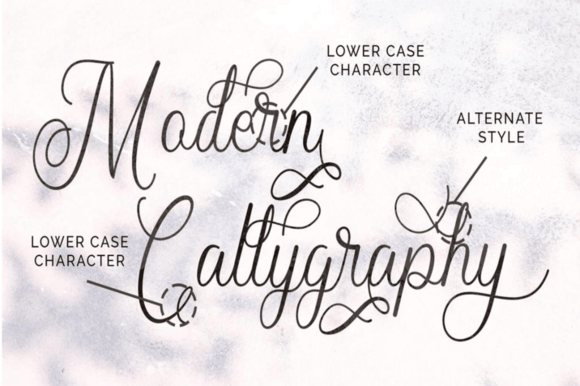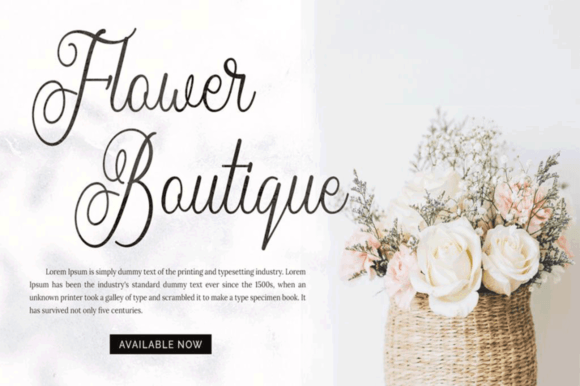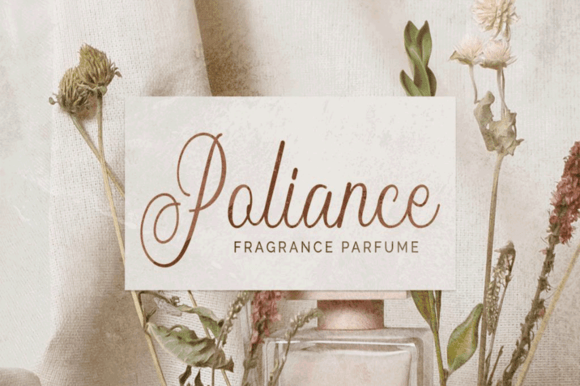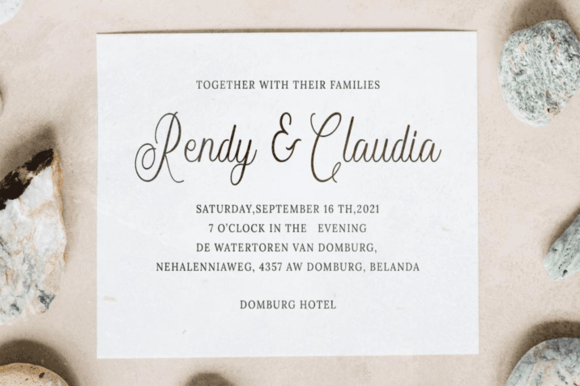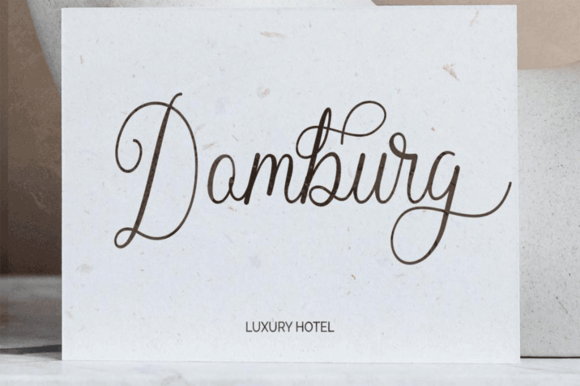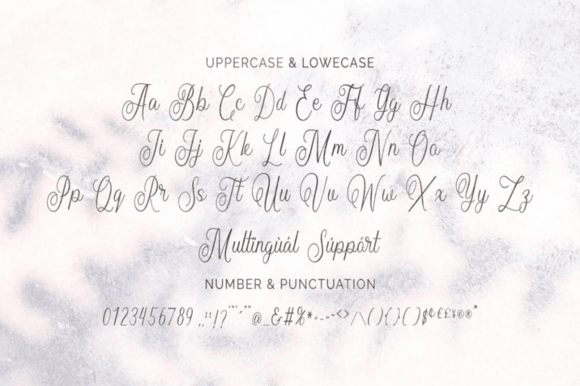
Bulmarie Font: Elevate Your Designs with Delicate Elegance
Are you on the hunt for a font that exudes sophistication and refinement? Look no further than the Bulmarie Font, a delicate and elegant handwritten font that is sure to capture your heart. With its distinct and well-balanced letters, Bulmarie is a masterpiece that will take your designs to the next level.
The Beauty of Bulmarie
Bulmarie is more than just a font – it’s an experience. Its incredibly versatile style makes it perfect for a wide range of design projects, from wedding invitations and branding materials to social media graphics and digital art. The font’s delicate lines and elegant curves create a sense of luxury and refinement, making it ideal for designers and crafters who want to add a touch of sophistication to their work.
What Sets Bulmarie Apart
So, what makes Bulmarie stand out from the crowd? Here are just a few features that make this font a must-have for designers and crafters:
- Delicate and Elegant: Bulmarie’s handwritten style is both delicate and elegant, making it perfect for designs that require a touch of sophistication.
- Distinct and Well-Balanced Letters: Each letter in the Bulmarie font is carefully crafted to ensure that it is distinct and well-balanced, creating a beautiful and harmonious visual effect.
- Incredibly Versatile: Whether you’re working on a wedding invitation, a branding project, or a social media graphic, Bulmarie is the perfect choice.
- PUA Encoded: Bulmarie is PUA encoded, which means that you can access all the glyphs and ligatures with ease. This makes it simple to customize your designs and add your own personal touch.
Uses for Bulmarie
Bulmarie is a versatile font that can be used for a wide range of design projects. Here are just a few ideas to get you started:
- Wedding Invitations: Create beautiful and elegant wedding invitations that set the tone for a sophisticated and refined wedding celebration.
- Branding Materials: Use Bulmarie to create branding materials that exude luxury and refinement, such as business cards, letterheads, and brochures.
- Social Media Graphics: Add a touch of elegance to your social media graphics, such as Instagram posts and Facebook graphics.
- Digital Art: Use Bulmarie to create stunning digital art, such as typographic quotes and illustrations.
Tips for Using Bulmarie
Here are a few tips for getting the most out of Bulmarie:
- Experiment with Different Sizes: Bulmarie looks beautiful in a variety of sizes, from small and delicate to large and bold.
- Play with Ligatures: Bulmarie’s PUA encoding makes it easy to access ligatures and glyphs, which can add an extra touch of elegance to your designs.
- Pair with Other Fonts: Bulmarie pairs beautifully with other fonts, so don’t be afraid to experiment with different combinations.
In conclusion, Bulmarie is a delicate and elegant handwritten font that is sure to capture your heart. With its distinct and well-balanced letters, incredibly versatile style, and PUA encoding, Bulmarie is the perfect choice for designers and crafters who want to add a touch of sophistication to their work. Whether you’re working on a wedding invitation, a branding project, or a social media graphic, Bulmarie is the perfect font for you.